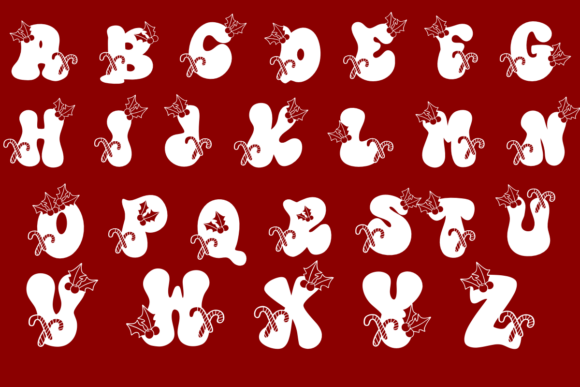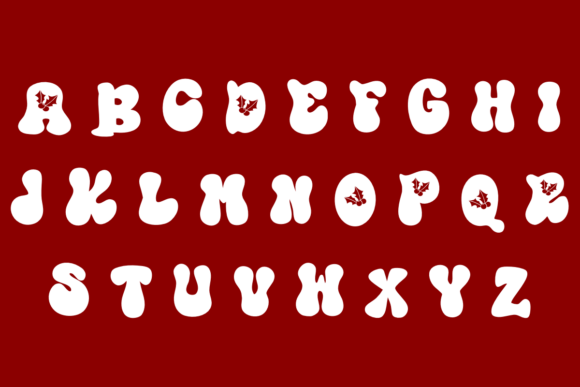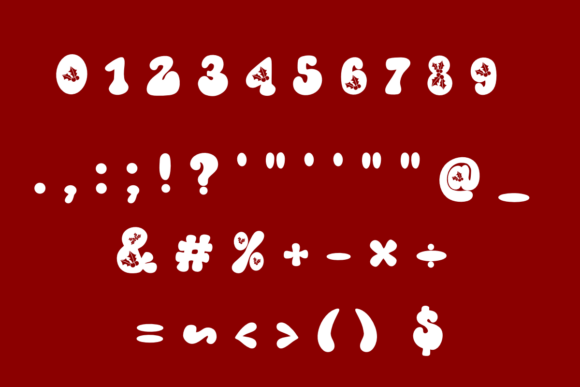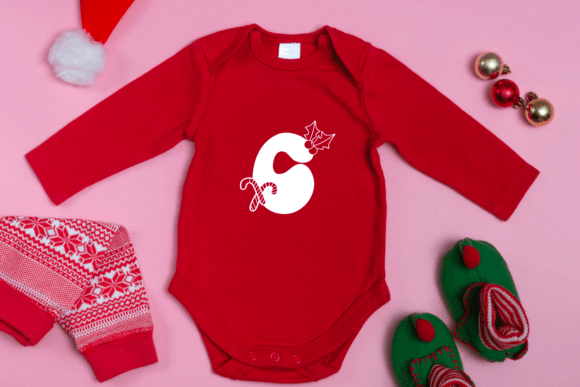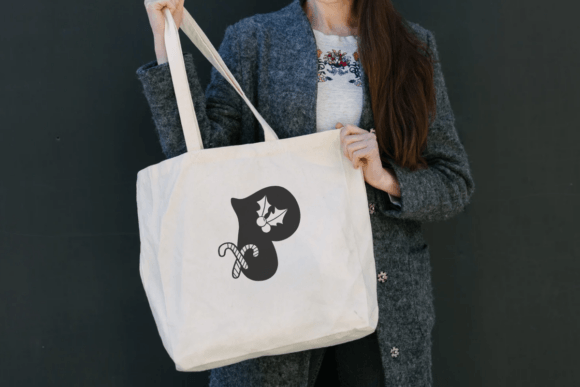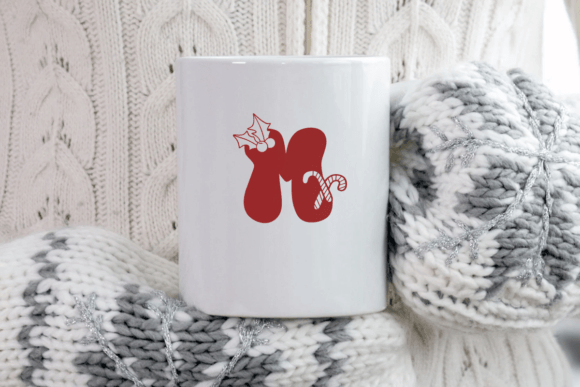
Introduction to Retro Xmas Font
This festive and retro-inspired font captures the holiday spirit with bold, rounded letters adorned with Christmas-themed decorations.
The font features playful uppercase characters embellished with holly, candy canes, and festive accents, adding a joyful and nostalgic touch to any design With its bold, soft curves and vintage style, this font is perfect for holiday greeting cards, Christmas posters, seasonal banners, or any creative projects needing a festive vibe.
Key Features of Retro Xmas Font